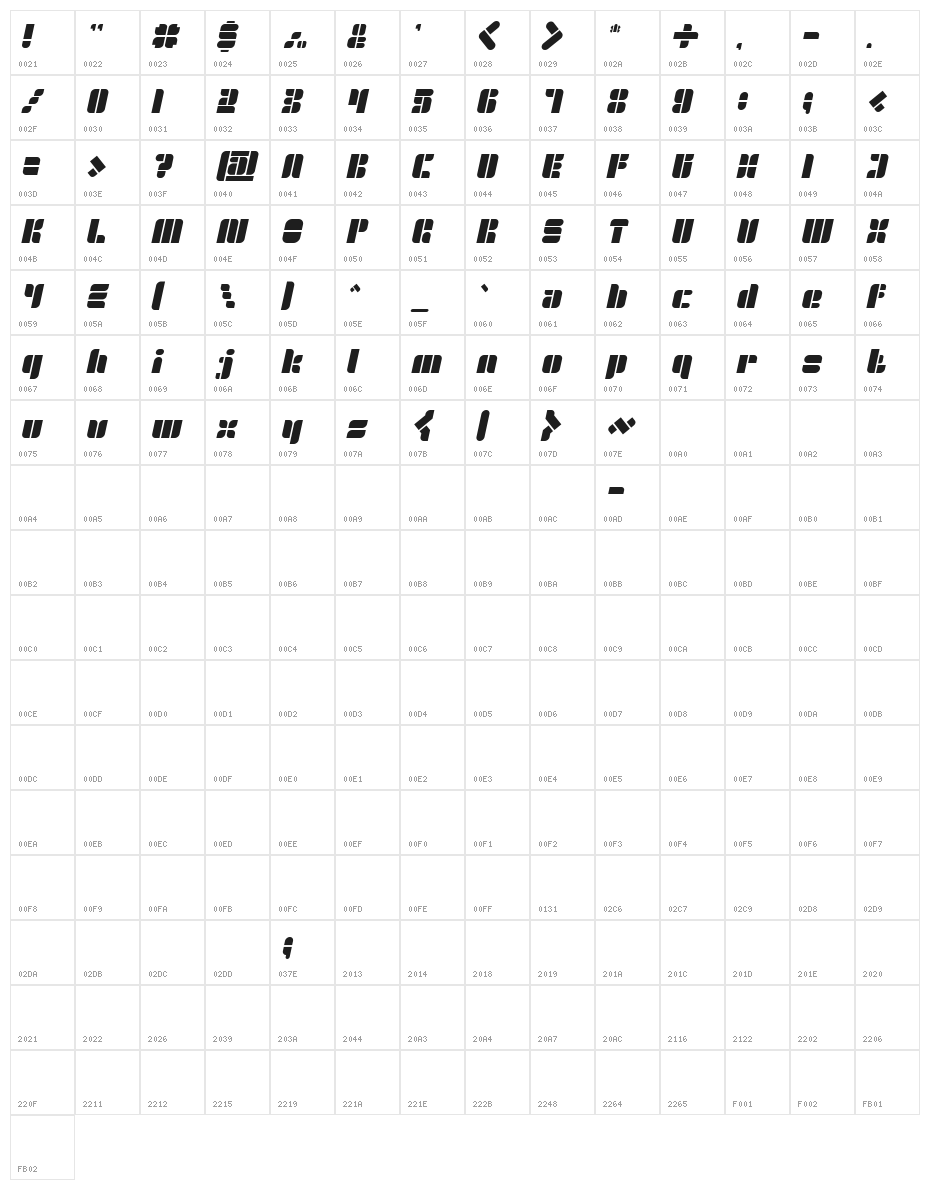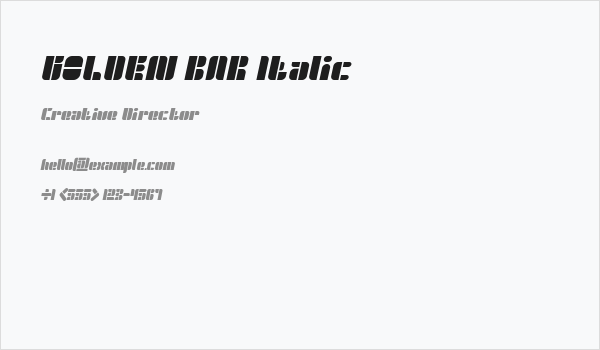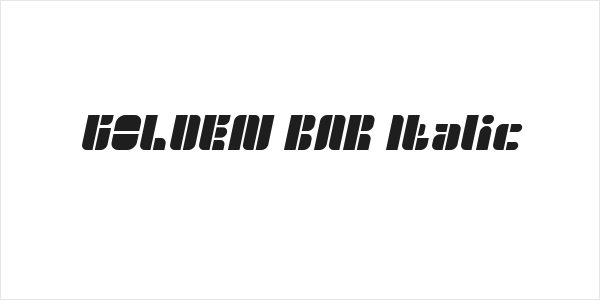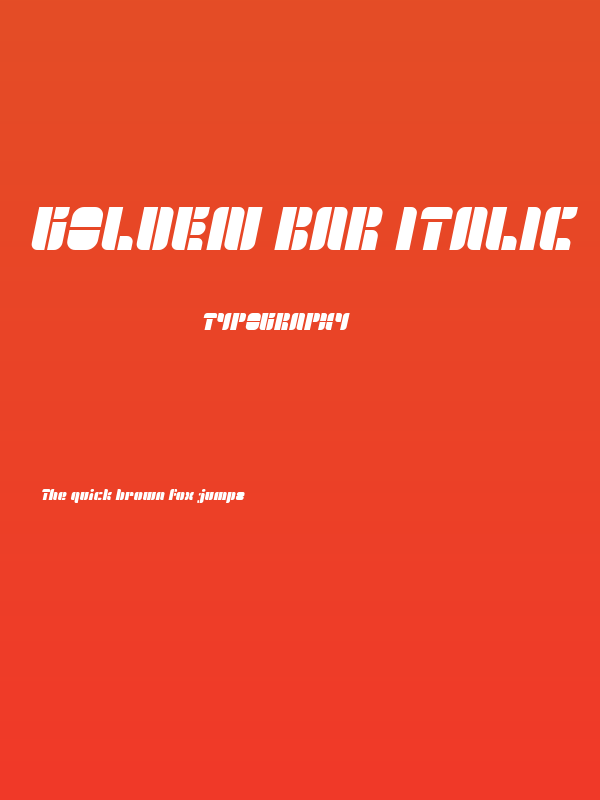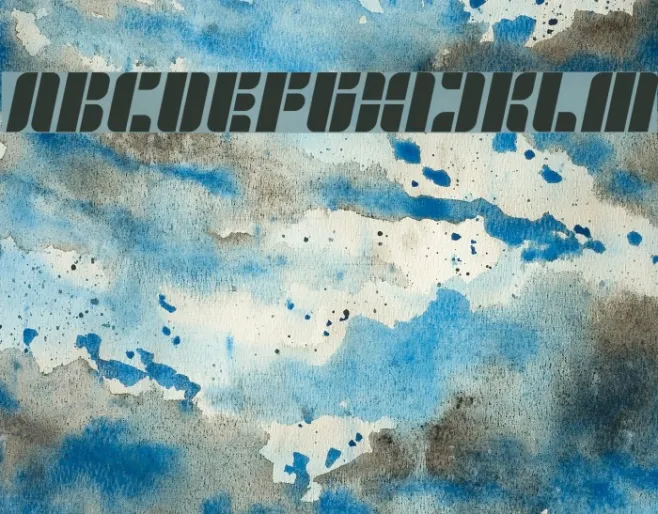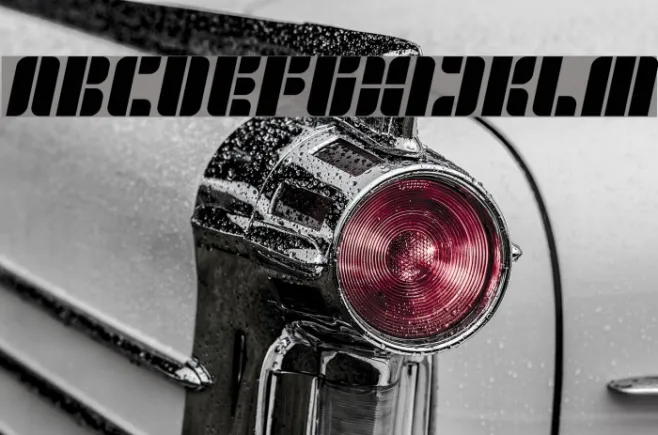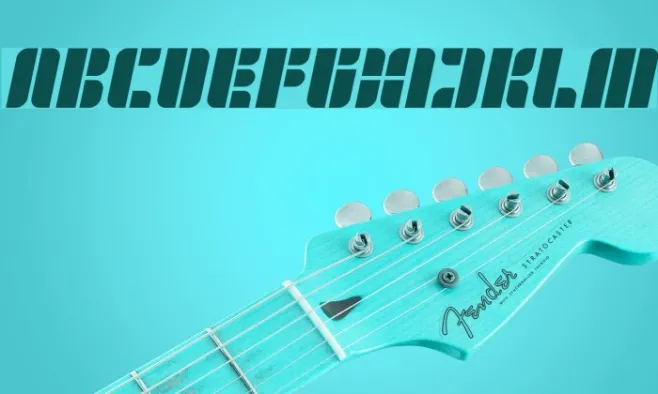
GOLDEN BAR Italic Font
GOLDEN BAR Italic Description
This font features a bold, geometric design with a distinct italic slant, creating a dynamic and modern appearance. The characters are constructed with thick, block-like strokes that give a sense of strength and stability. Each letter is uniquely stylized with rounded edges and a consistent angle, contributing to a cohesive and visually striking typeface. The numbers and special characters maintain the same bold and angular style, ensuring uniformity across all glyphs. This font is highly legible and commands attention, making it ideal for impactful designs.
| Proposed Projects | Ideal for branding, posters, headlines, and any project requiring a strong visual impact. |